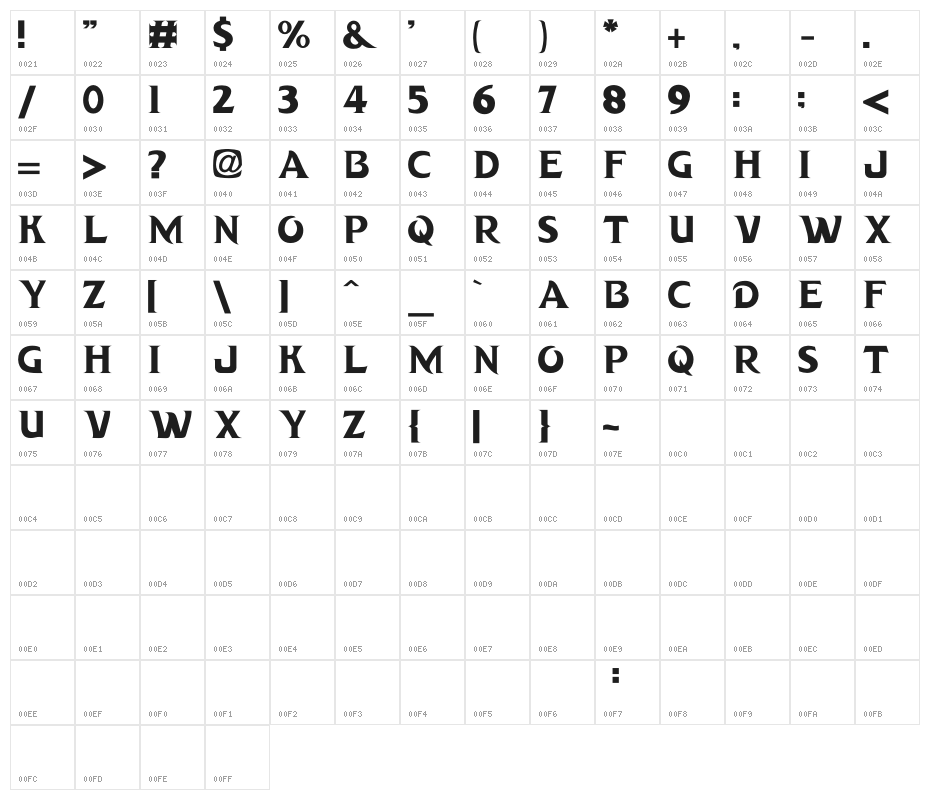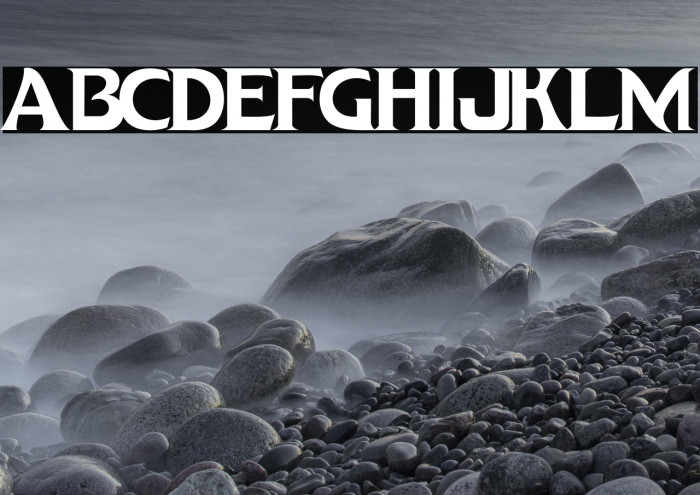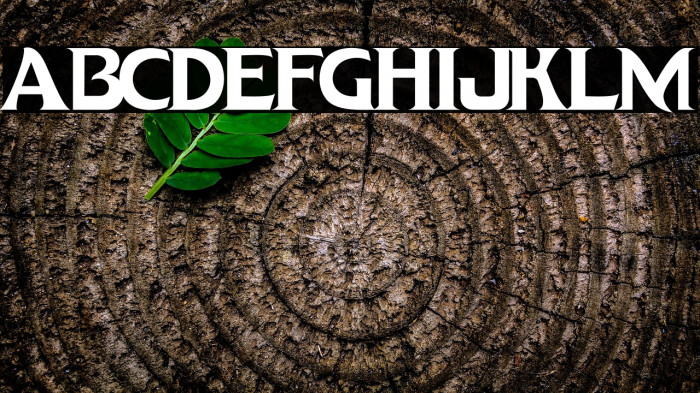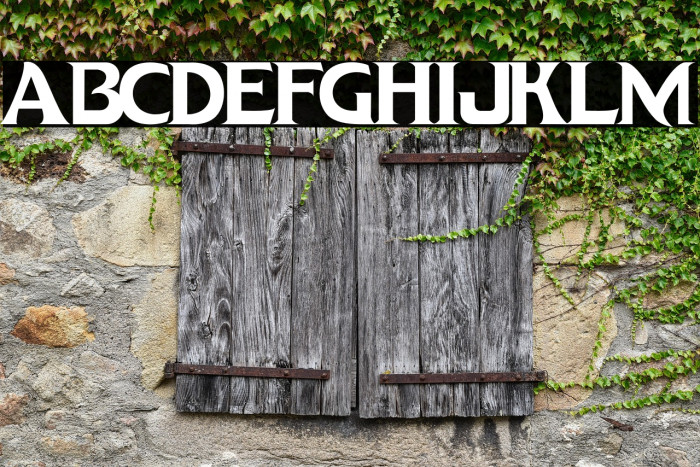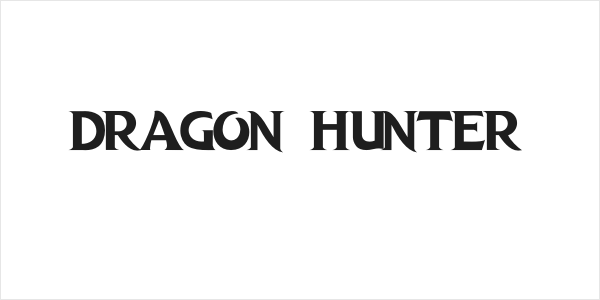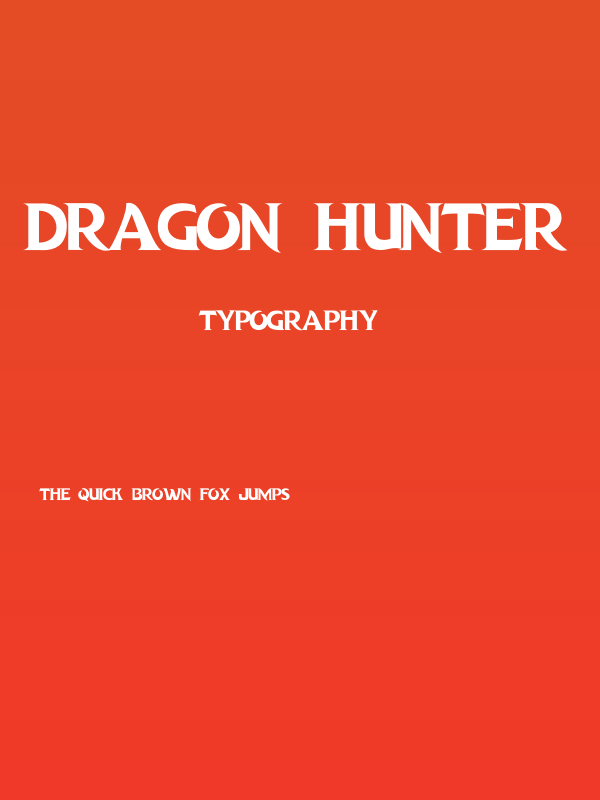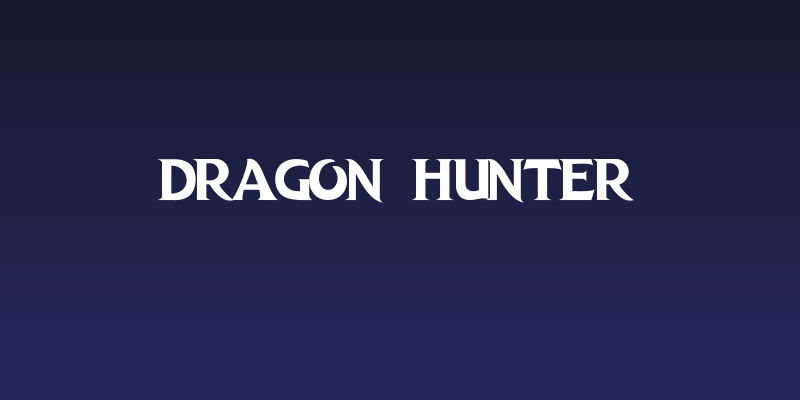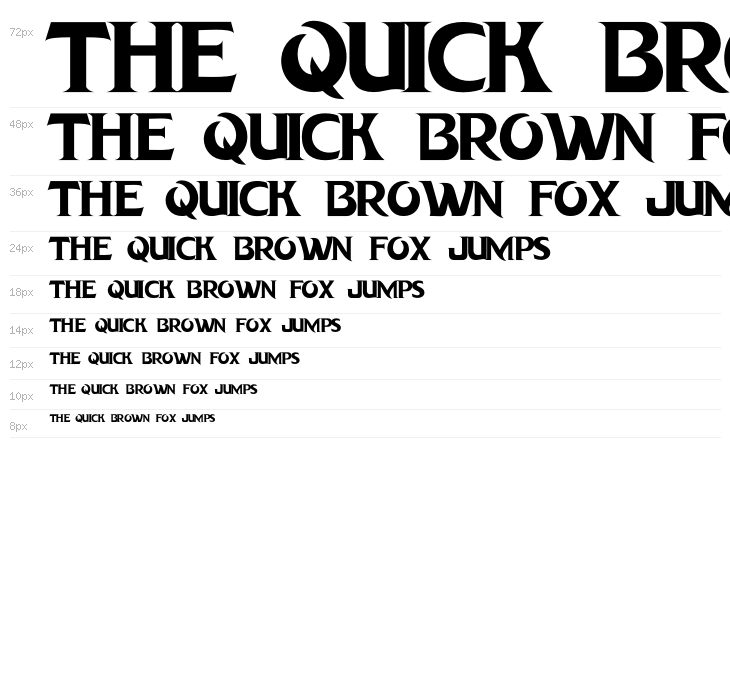
DRAGON HUNTER Font
DRAGON HUNTER Description
A bold, decorative font with sharp, angular serifs and a medieval flair, suitable for fantasy-themed designs.
| Overall Style | Decorative, Medieval |
| Proposed Projects | Fantasy book covers, game titles, posters. |